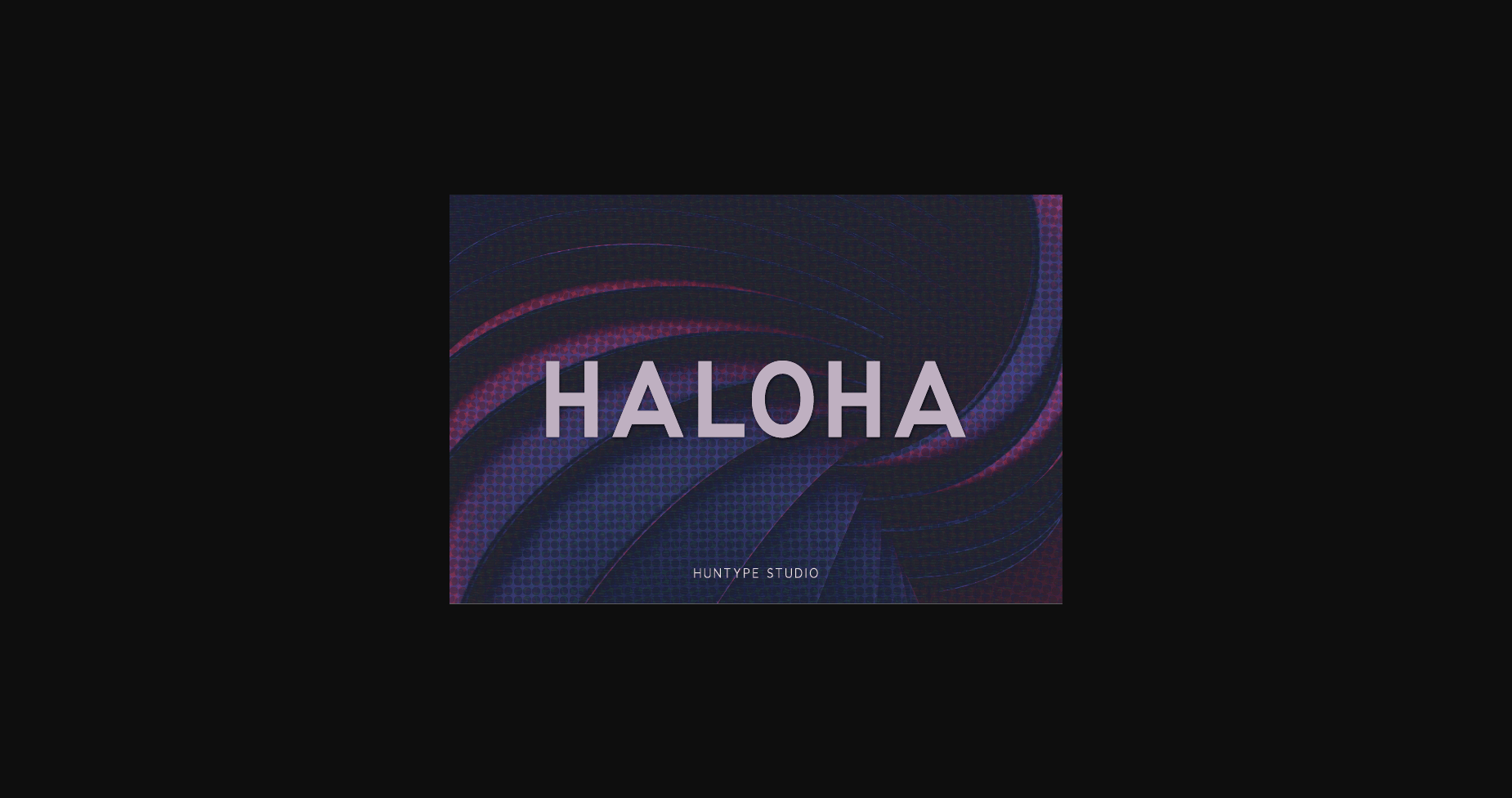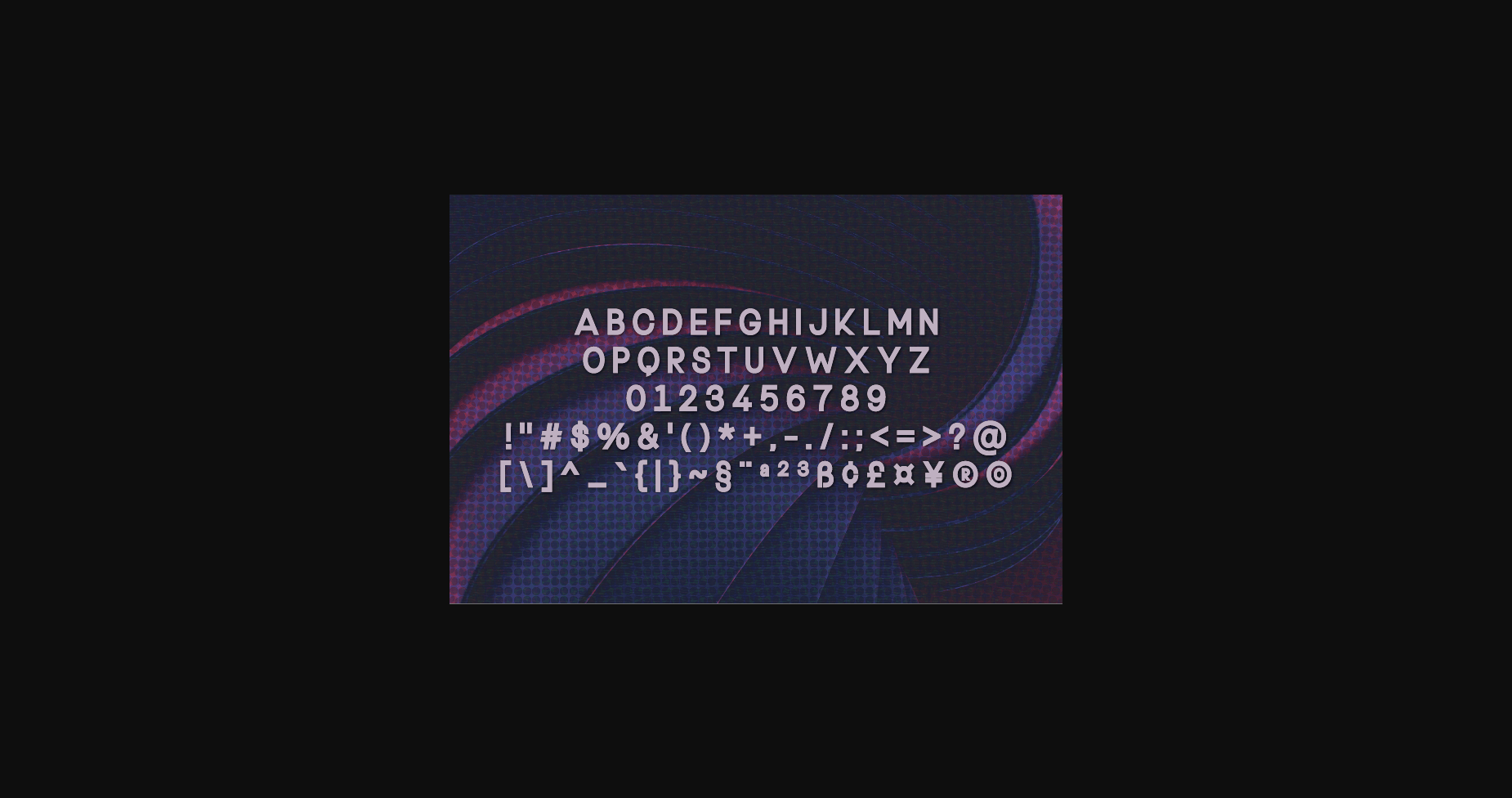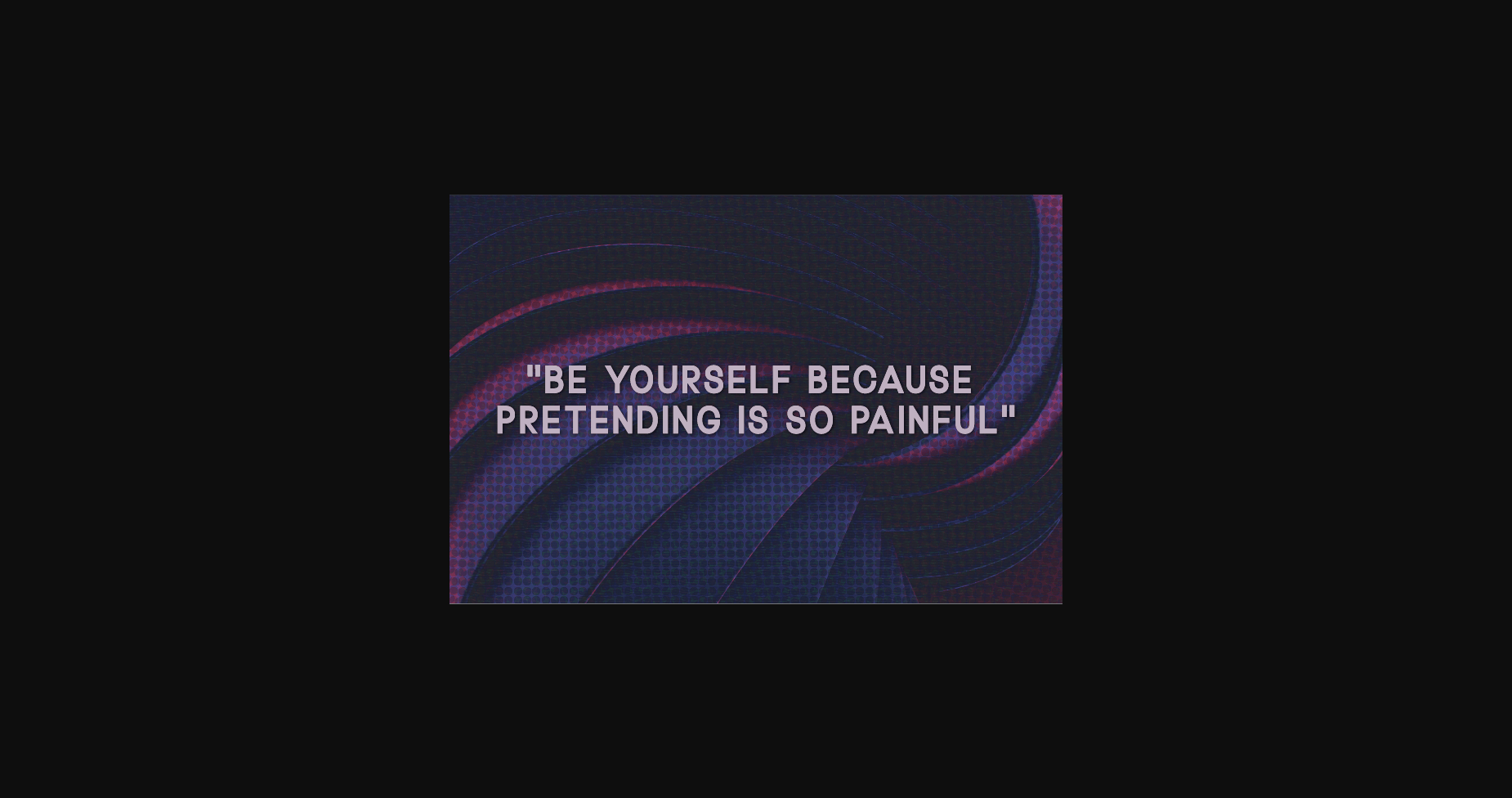
HomeSans Serif FontsHaloha Font Sans Serif Fonts Haloha Font FacebookXPinterestWhatsApp 1 of 5 ... Haloha Font Poster 2... Haloha Font Poster 3... Haloha Font Poster 4... Haloha Font Poster 5... About Haloha Font Haloha is an all-caps sans serif. It is versatile and looks great in just about any context. With smooth and clean lines and just a touch of contrast, Haloha works beautifully for logos, branding, and web headings. DOWNLOAD NOW People also explored Ice Cream Font Hello Daisy Font Kiro Darkshine Font Kimberly Font Absolute Kimberly Font Nazgul Font Amber Autumn Font 284 0 TagsHalohaHaloha Font Previous articleAesthetic FontNext articleExquisite Font LEAVE A REPLY Cancel reply Comment: Please enter your comment! Name:* Please enter your name here Email:* You have entered an incorrect email address! Please enter your email address here Website: Save my name, email, and website in this browser for the next time I comment. Personal Use Free My Shine Personal Use Free Read more about this font Street Cred Personal Use Free Read more about this font Vanilla Whale Personal Use Free Read more about this font BD TinyFont Personal Use Free Read more about this font BLOG Using Fonts in Digital Marketing: Tips to Strengthen Your Brand Identity In the realm of digital marketing, every visual element plays a crucial role in shaping a brand's identity, and fonts are no exception. The... Modern Sans-Serif Fonts That Brands Love in 2025 To increase your work productivity, choose the most readable fonts. Free Fonts Risk: Why Free Fonts Can Be Dangerous for Designers